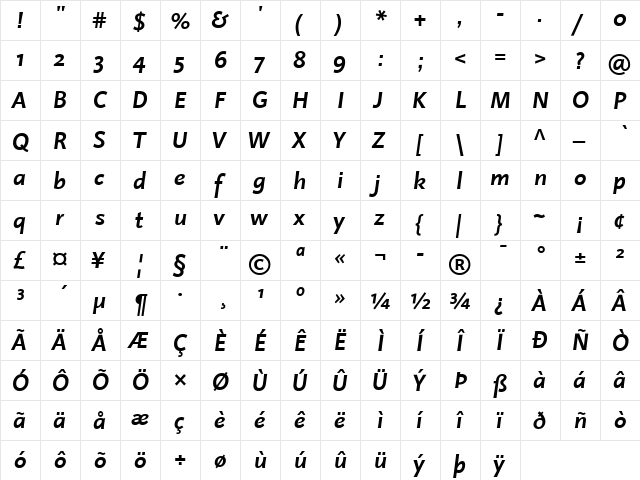
LinotypeProjekt Bold Italic Font Preview
LinotypeProjekt Bold Italic
LinotypeProjekt Bold Italic Font Details
Design Context for LinotypeProjekt Typeface
LinotypeProjekt is a composed and adaptable typeface that performs quietly and consistently across a wide range of design contexts. The slanted form adds forward momentum and visual energy. Its bold stroke weight gives it real presence on the page.
Pro Tip: Use LinotypeProjekt for emphasis, pull quotes, and subheadings where its slanted energy can add rhythm to the layout.